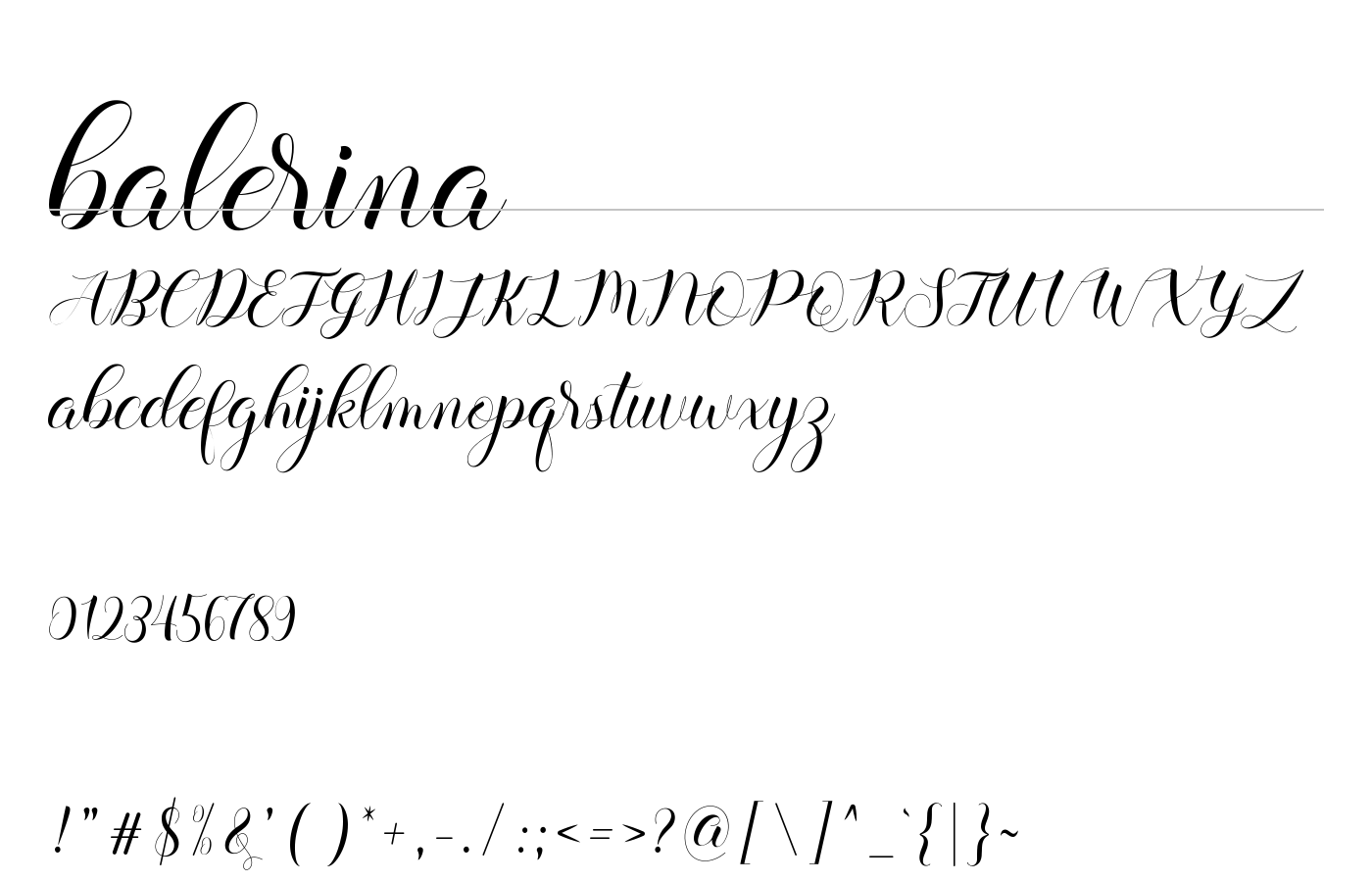
Balerina is an elegant script font with a graceful, flowing style that evokes the delicate movements of ballet. Featuring fine hairlines paired with thicker strokes and intricate swashes, it brings a luxurious and sophisticated feel perfect for invitations, luxury branding, and feminine design projects. Its refined curves and distinct letterforms make it ideal for headlines and decorative purposes where a touch of elegance is desired.
balerina Font
About balerina Font